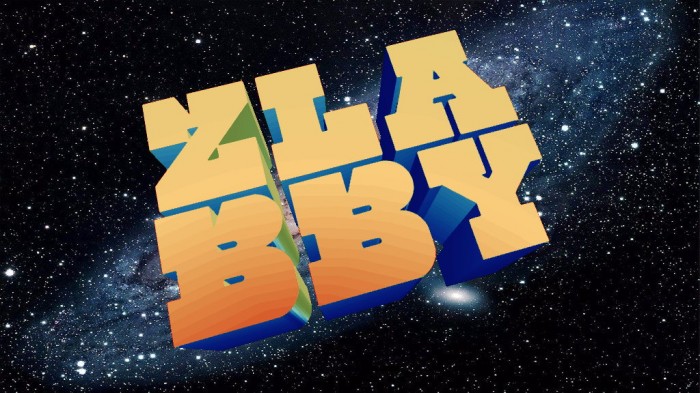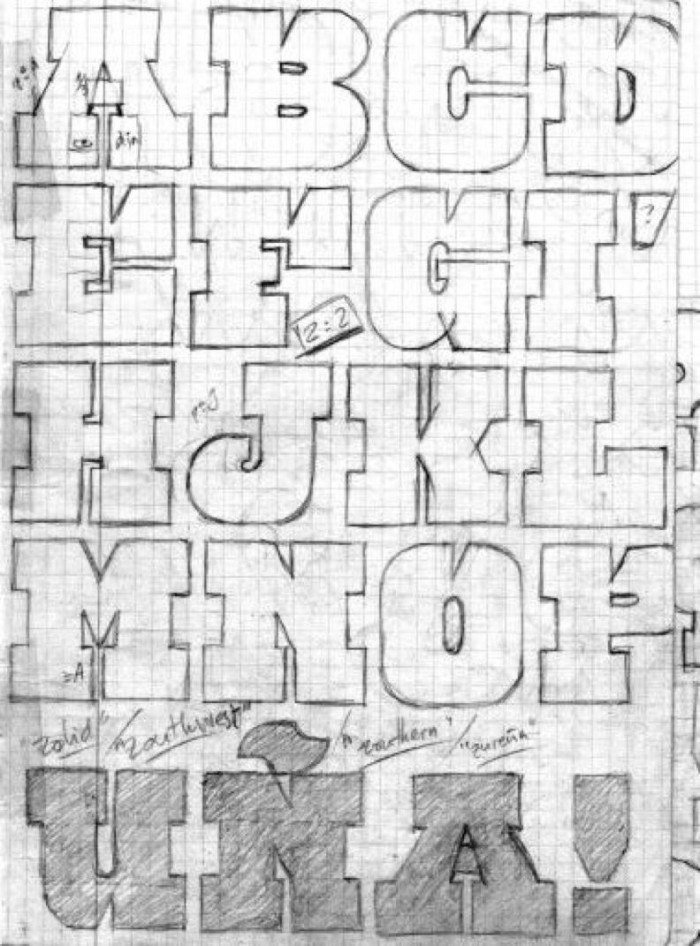
Work in progress (kerning and more glyphs).
Great entries, I like especially this!
Very strong font. I like the distinctive spikes that make up the serifs. This can make beautiful headlines for magazines or shirts .... That is very impressive. Why are you showing us this beauty only now? I would like to see more of that. : )
Congratulations, the TP fits perfectly into each of those clever small serif-notches :)
eye/FS = the shit!!! woohoo!
This is DELICIOUS.
Nice Fat western
love the way you engrave the top of O B P , nice design
Going through my notebooks I found this old sketch.
A ??? ??? ??? ??? B C D E F 2:2 G I ' ? H ???  J K L M A N O P "zolid"/"zouthwest"/"zouthern/"zureña" UÑA!